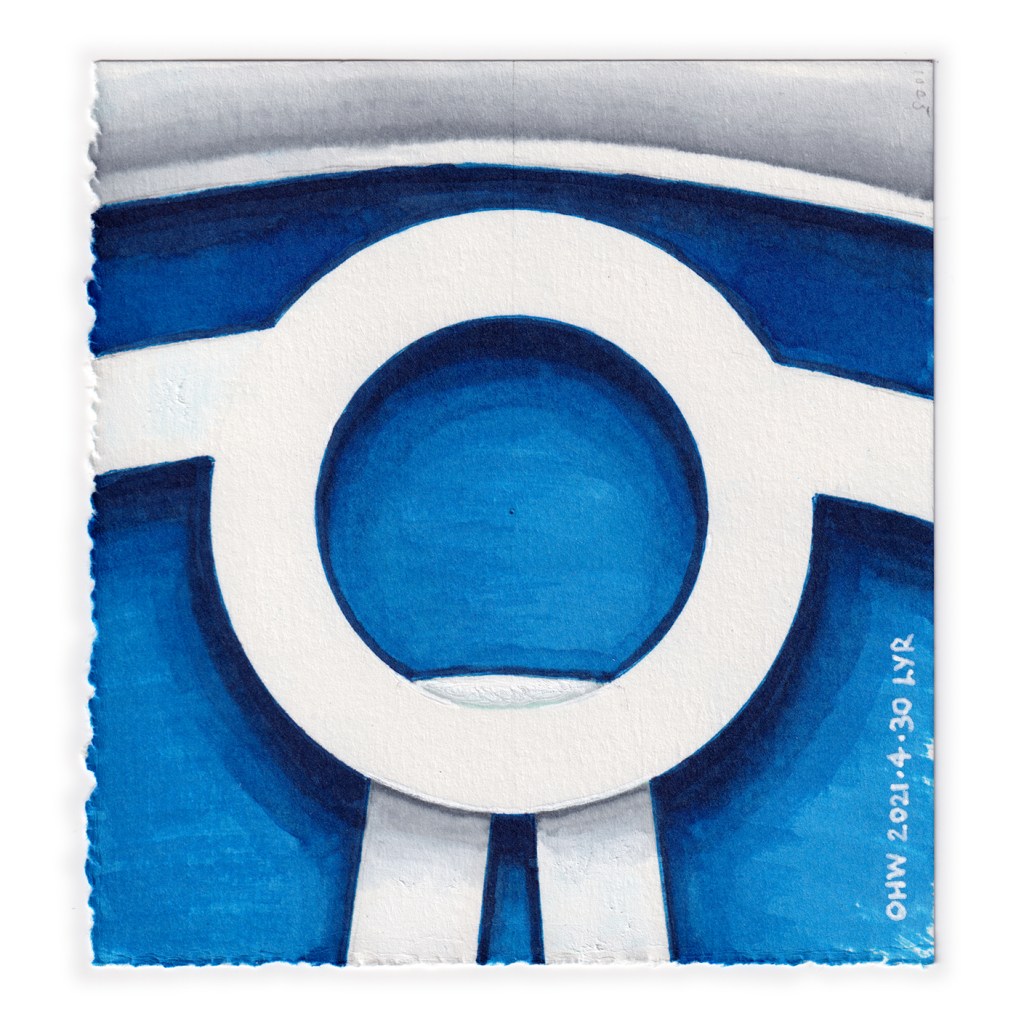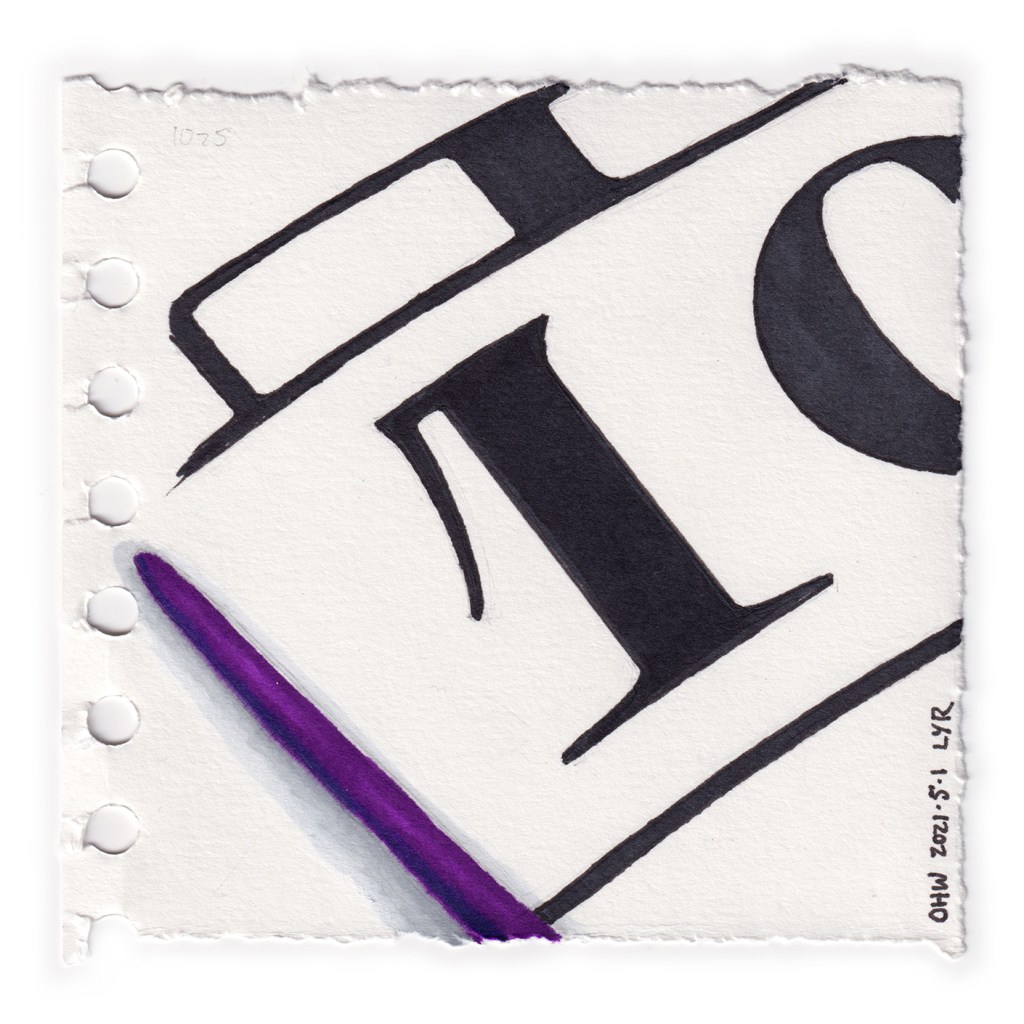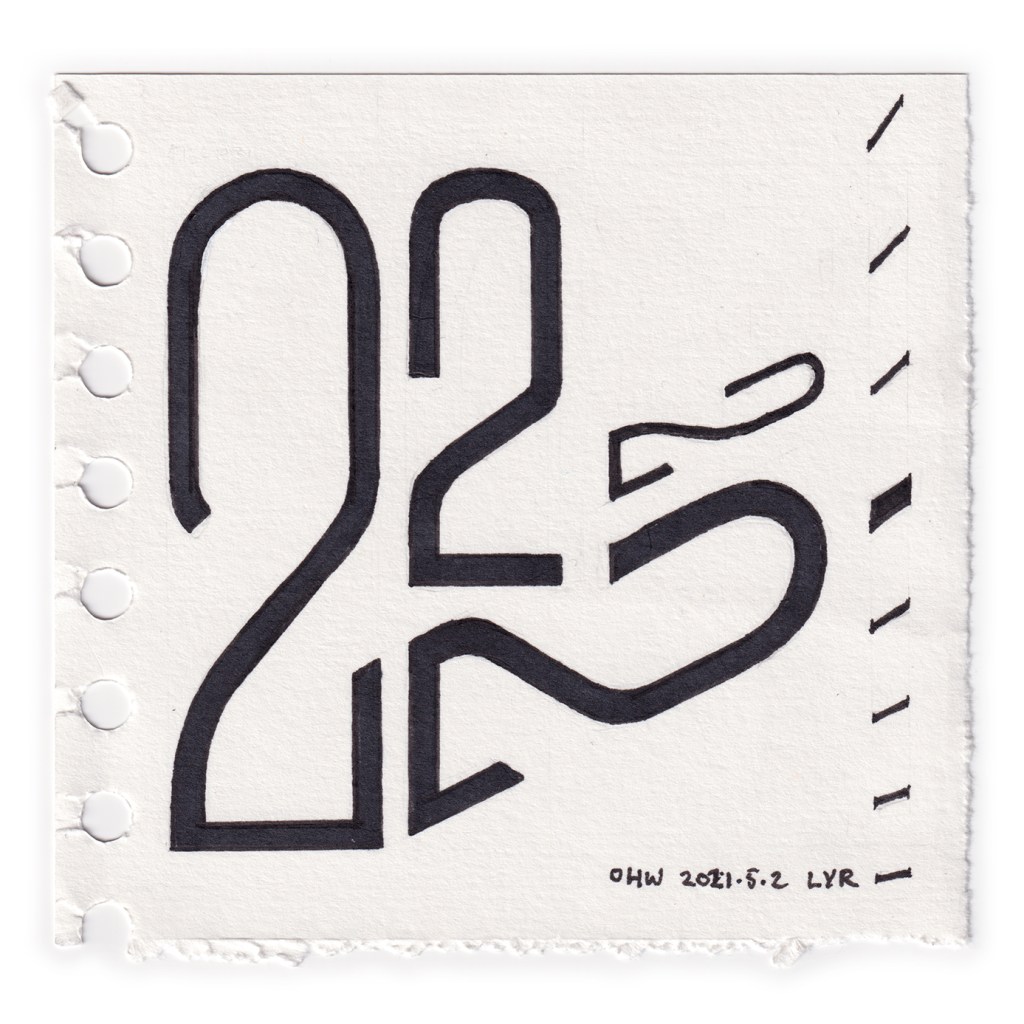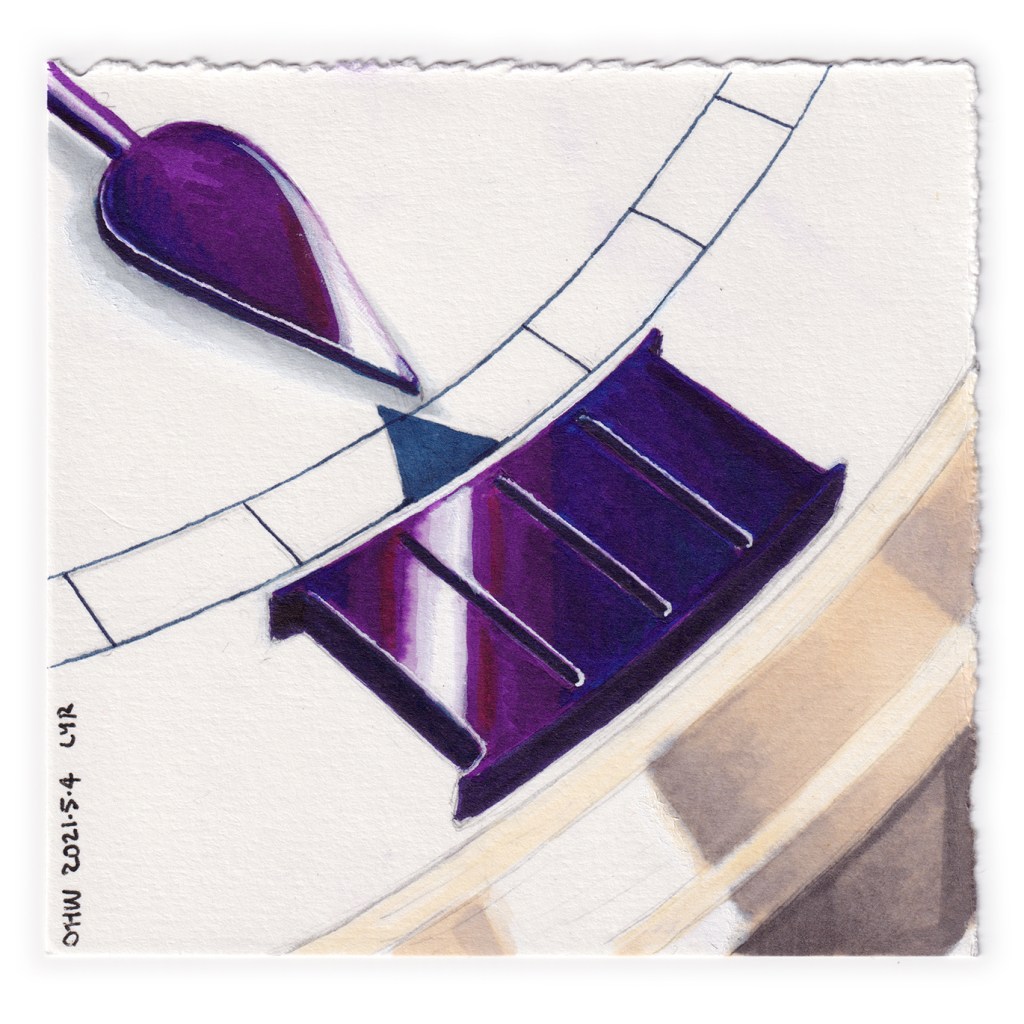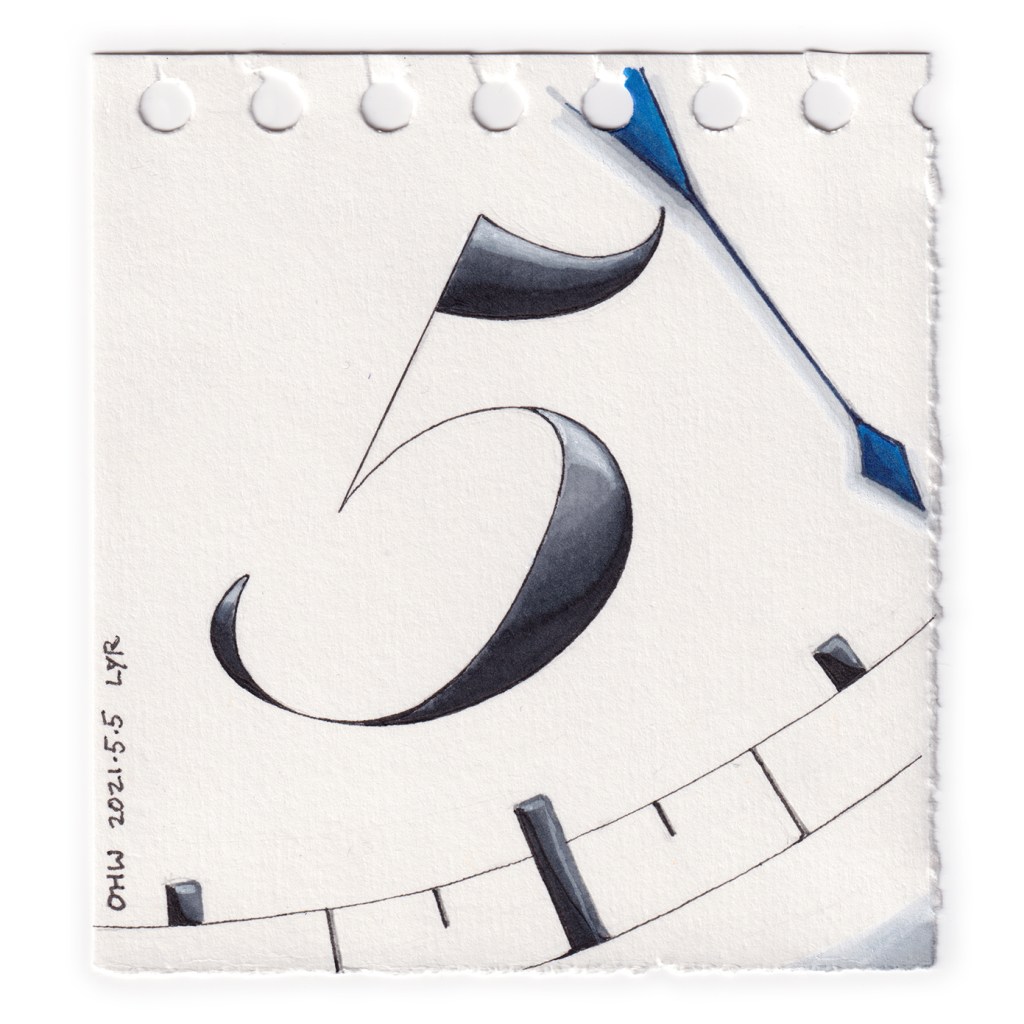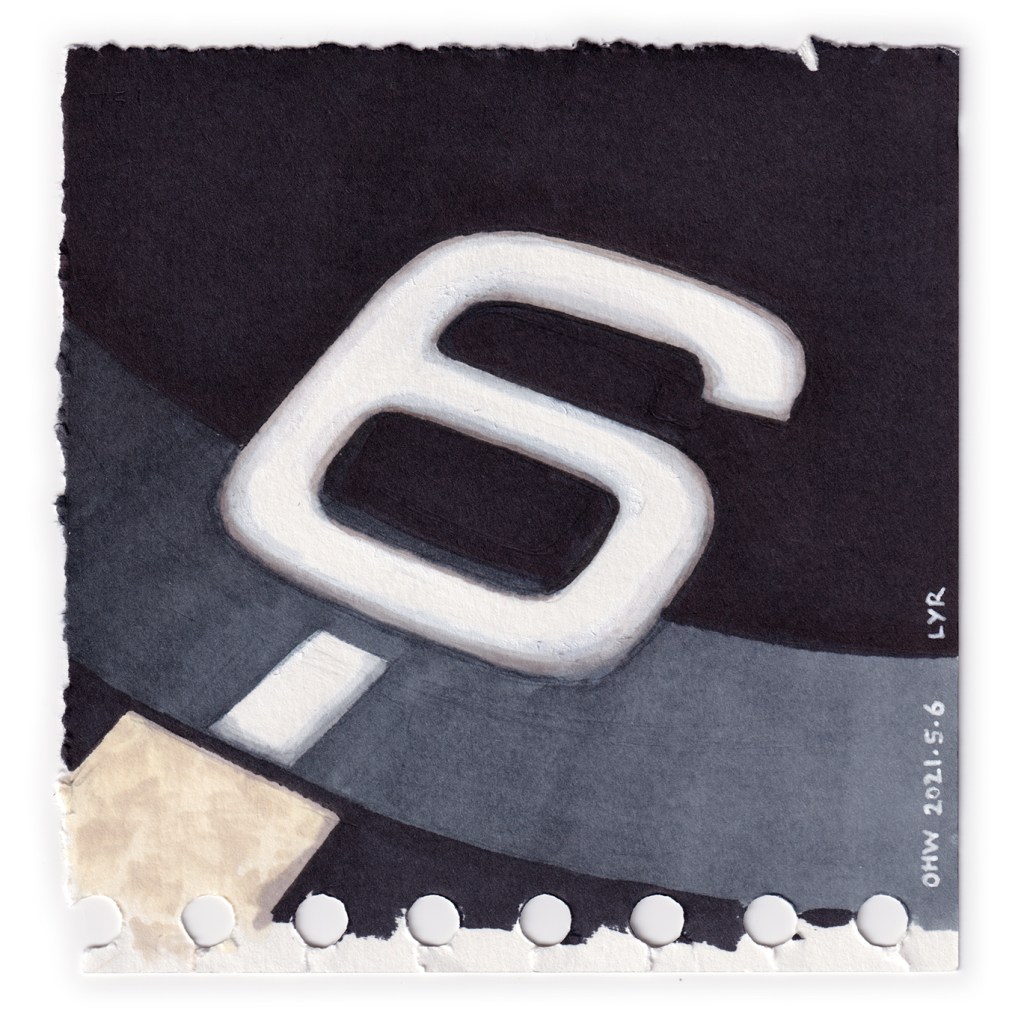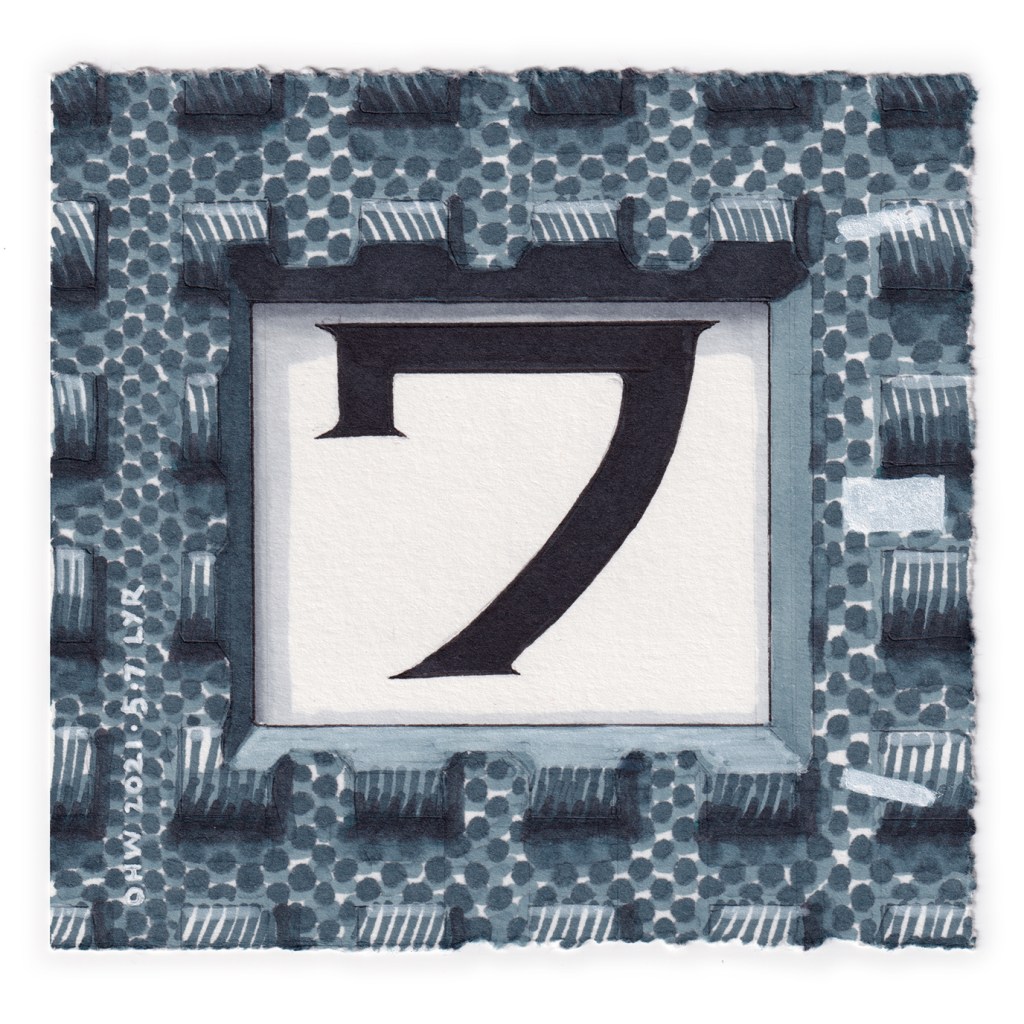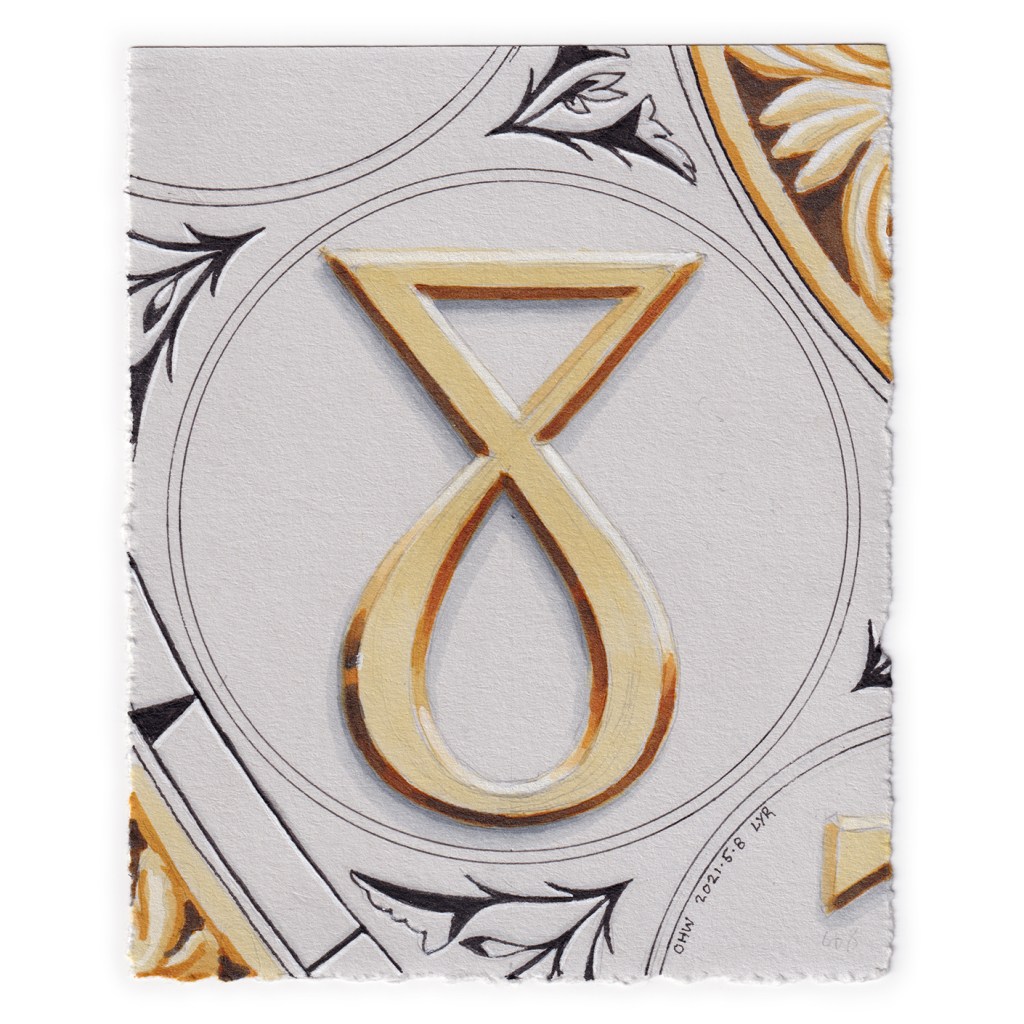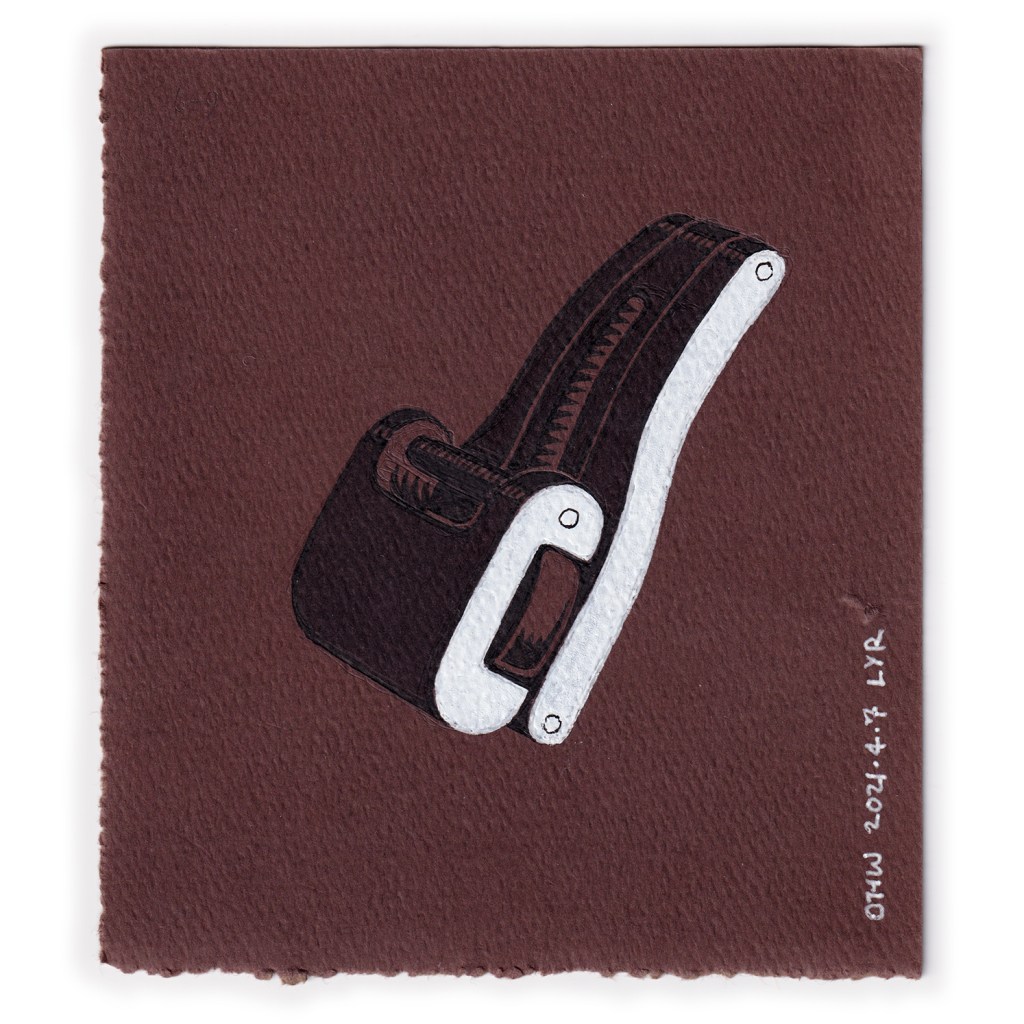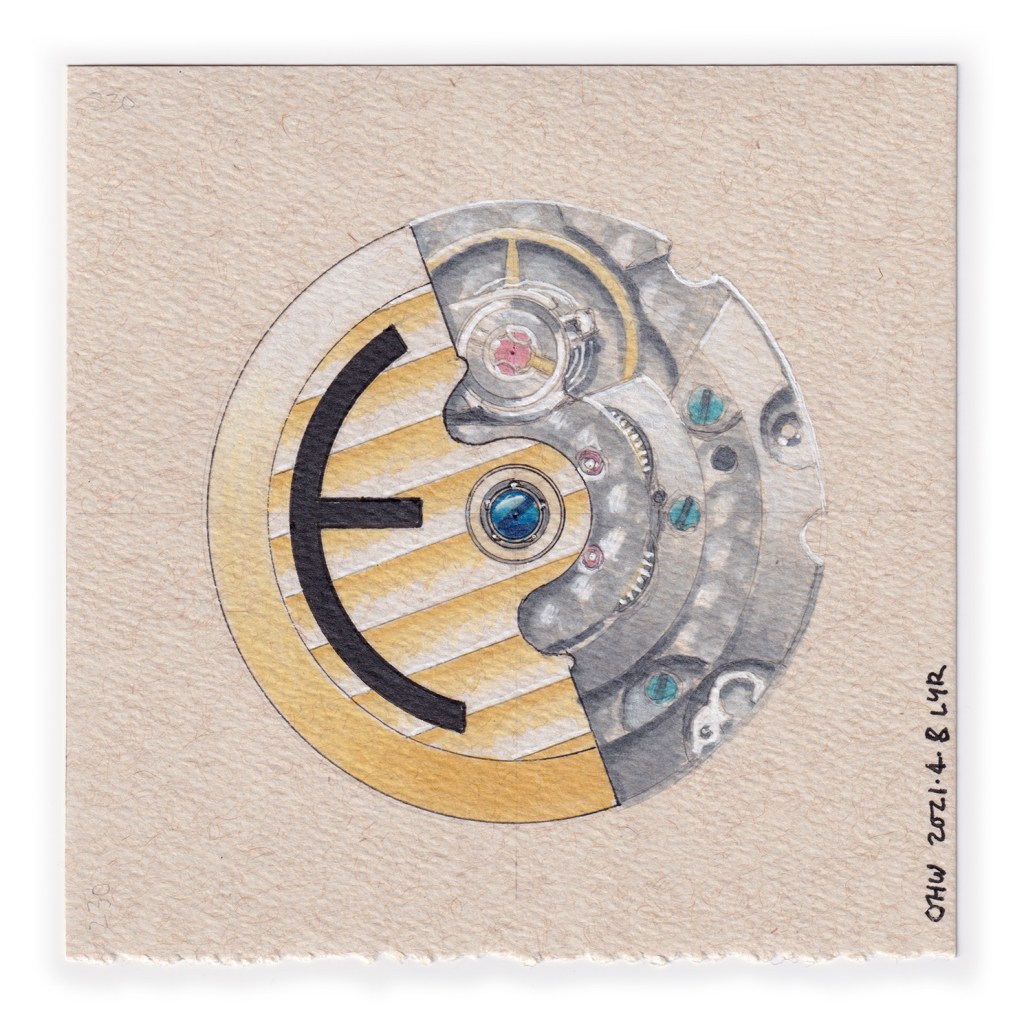
This year I decided to take part in the 36 Days of type challenge held primarily on Instagram. I gave a horological twist to the challenge by turning parts of timepieces into letters. The ten numerals at the end represent some examples of iconic timepiece numerals. The series of drawings was also part of my daily One hour watch project so each drawing took no longer than sixty minutes to complete. You can click on the images to enlarge them.
AB After missing the first day of the challenge, I decided to combine A and B to show ‘Ab’ or the empty point of a German power reserve indicator.
C is for cabochon settings generally found on crowns.
D is for a deployant clasp.
E is for ETA, the maker of many Swiss watch movements. I took the initial letter from their logo.
F is for frequency as seen on an aventurine dial Omega Megaquartz.
G is for the gear train. This arrangement was inspired by the work of Vincent Calabrese.
H is simply for horloge.
I is for index (with a cheeky lume dot to make it lower case).
J is for the jewels used in movements.
K is for keyless works. This is a series of levers and wheels that allows a watch to be wound and set using a crown.
L is for a lever escapement.
M is for a moon phase indicator. One of my favourite complications.
N is for Nato strap.
O is for O-rings, used to help to waterproof watches.
P is for perlage, a functional decoration technique for watch plates.
Q is for a Quartz movement. The movement drawn here is a Grand Seiko 9F83.
R is for the Rolex rehaut. An anti-counterfitting measure which features the logo repeating around the flange or rehaut with each letter lining up with a minute marker.
S is for Seiko serifs. In certain printed applications of the Seiko logo, each serif is given its own mini-serif to retain the appearance of sharp corners.
T is for the tourbillon.
U shown here is from an applied Universal Genève logo.
U (2) is for Urwerk. I retroactively drew this to replace the U on my Horological Alphabet poster as there were too many logos-as-letters already featured.
V shown here is an example of the Vetta logo.
W is for wheels.
X is for the Roman numeral 10, seen here emulating an example of a faceted applique found on some vintage watches.
Y is for the Yema Yachtingraph.
Z is for the zodiac constellations that are found on celestial dials.
0 is from the MING 17.09 Blue.
1 is from old pocket watch subdials.
2 drawn from examples of Weber & Baral dials.
3 from watches made for the Turkish market. Persian numerals were transformed into modular geometric forms on Turkish watches.
4 (IIII) is from the Charles Frodsham Double Impulse Chronometer.
5 is from a Breguet Souscription watch.
6 from the elapsed hours subdial of an Omega Speedmaster.
7 is from a vintage Audemars Piguet 5402 Royal Oak.
8 is from an antique clock
9 is from an exotic dial Rolex 6263 Cosmograph Daytona.